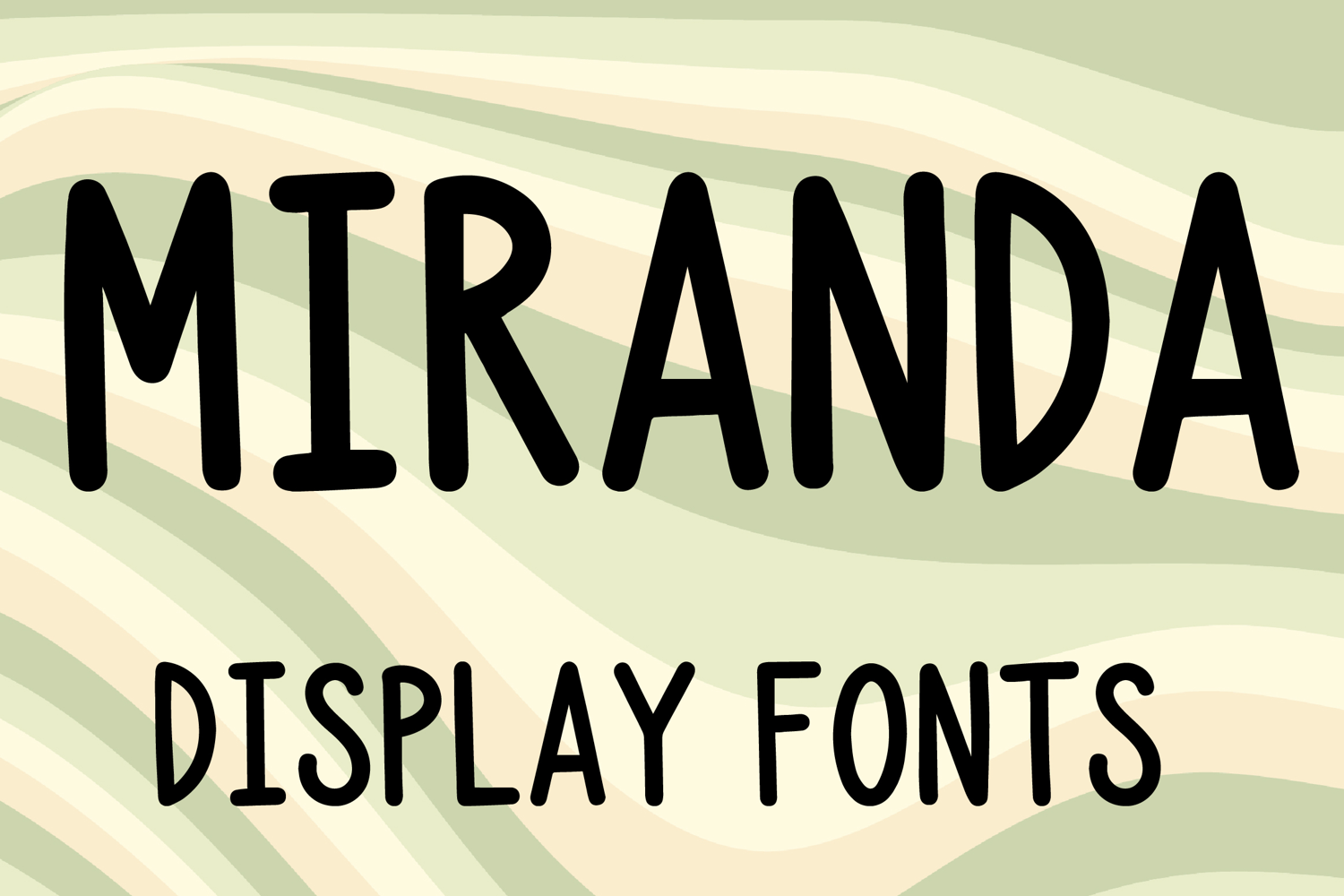
MIRANDA
MIRANDA-Regular
MIRANDA is a modern display font with a tall minimalist style and clean handcrafted character. Its uppercase letterforms feature slim elongated strokes, softly rounded edges, and balanced proportions that create a stylish, elegant, and eye-catching look. Designed with uppercase letters A–Z and numbers 0–9, MIRANDA is perfect for branding, posters, packaging, logos, headlines, and social media graphics that need a refined and memorable statement.